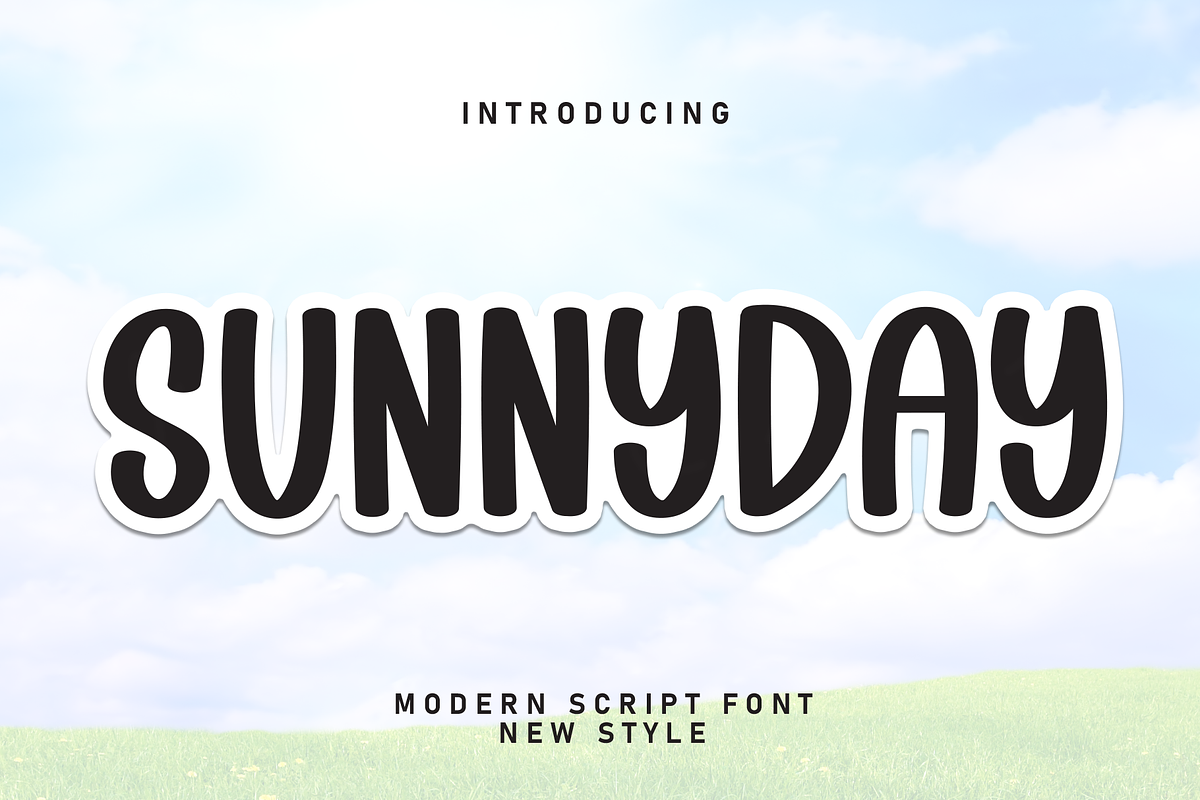
Sunnyday | Script Font Free Download is a vibrant and cheerful handwritten script typeface that exudes warmth and friendliness. With its smooth, flowing strokes and inviting design, Sunnyday is perfect for creating personalized branding, invitations, greeting cards, social media graphics, and any project that needs a positive and playful touch.
Sunnyday | Script Font Free Download adds a warm, friendly vibe to your typography, making it ideal for designs that want to feel approachable and fun. Whether you’re crafting a summer-themed event invitation, designing a custom logo, or creating delightful social media posts, Sunnyday brings joy and personality to your work. Download it today and bring the sunshine to your next creative project!